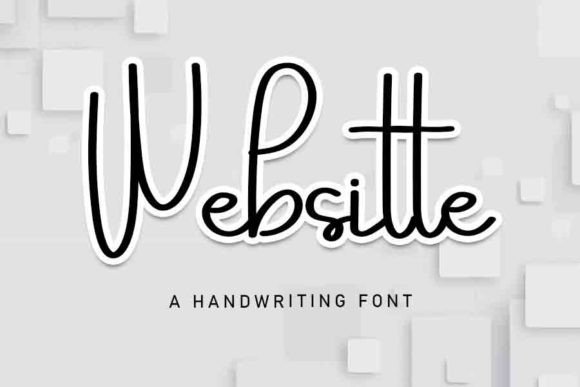
Journey into the world of Websitte, a font collection that embodies the essence of joy and celebration. Inspired by the jubilant spirit of birthdays, Websitte dances across your designs with the grace of a ballerina, leaving a trail of elegance and charm. Crafted by the visionary Leontyn Art, this script font family captures the magic of those special days when laughter fills the air and smiles light up every corner.
Imagine your designs adorned with Websitte's enchanting characters, each one a stroke of genius that dances along the baseline. This font is not just a collection of letters; it's a symphony of visual delight, where every curve and flourish harmonizes to create a captivating visual experience. The result? Designs that radiate happiness, evoke a sense of celebration, and leave an unforgettable impression.
With Websitte, you're not just choosing a font; you're embracing a world of possibilities. Whether you're creating invitations that sparkle with joy, greeting cards that warm the heart, or social media posts that spread cheer, Websitte becomes your creative partner, enhancing your designs with a touch of magic.
Gone are the days of dull and lifeless fonts. With Websitte, you unlock a treasure trove of beauty and creativity, transforming your designs into mesmerizing works of art. Embrace the spirit of celebration and let Websitte take your creations to new heights of enchantment.
So why settle for ordinary when you can have extraordinary? Embrace the magic of Websitte today and let your designs shine brighter than ever before. Whether you're a passionate designer, a creative entrepreneur, or simply someone who loves to add a touch of whimsy to their projects, Websitte is your key to unlocking a world of boundless imagination.
Join the celebration and let Websitte be your guide. Discover the joy of creating designs that speak to the heart, designs that bring smiles to faces and create memories that last a lifetime. Websitte is more than just a font; it's an experience that will transform your creative journey forever.